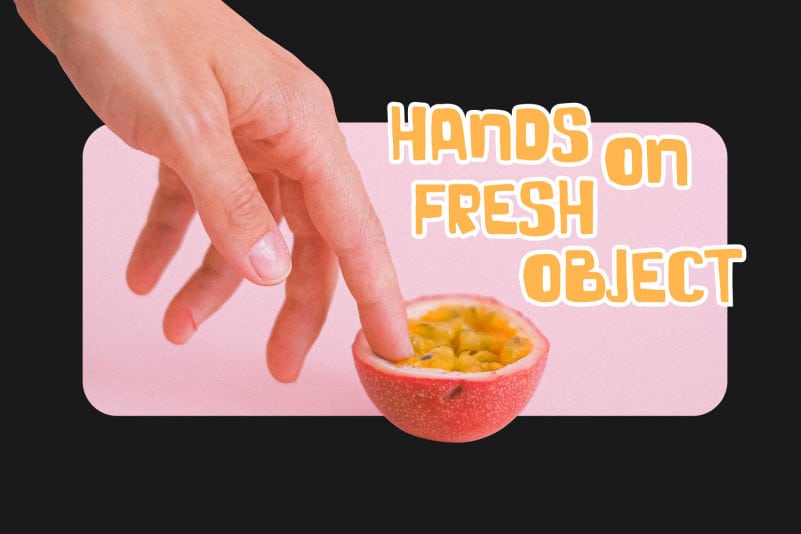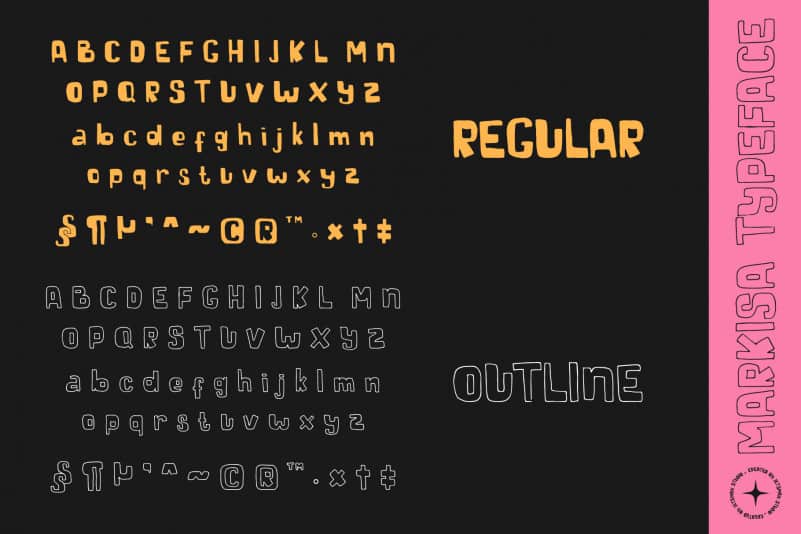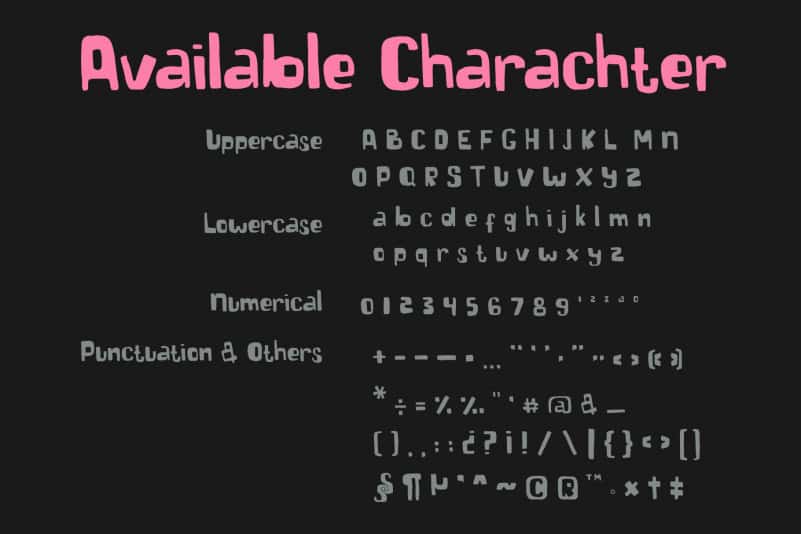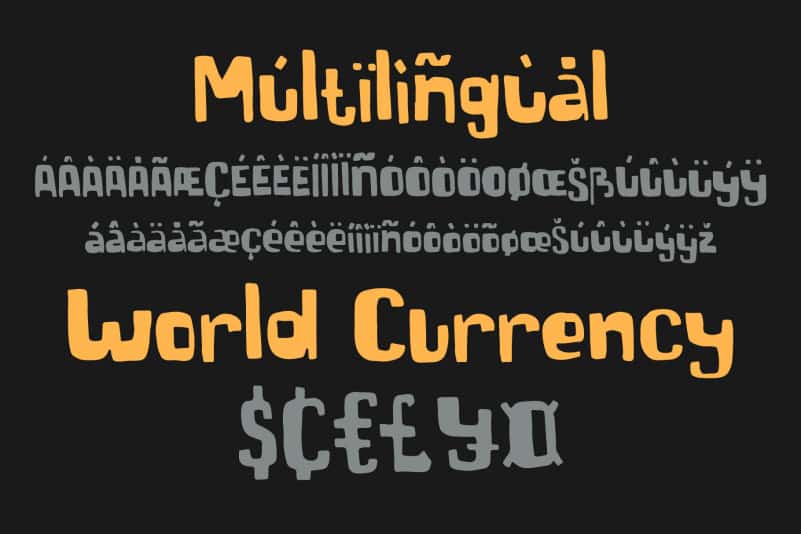
Markisa Display Font
Markisa Display Font is a contemporary display font that heavily influenced by modern and free hand drawn style. With its two different styles, Regular and Outline, this font will make your formal and non-formal design even more stand out!
Markisa Display Font best uses for branding, logotype, poster, holiday event, greeting cards, birthday invitation, advertisement, social media posts and many more.